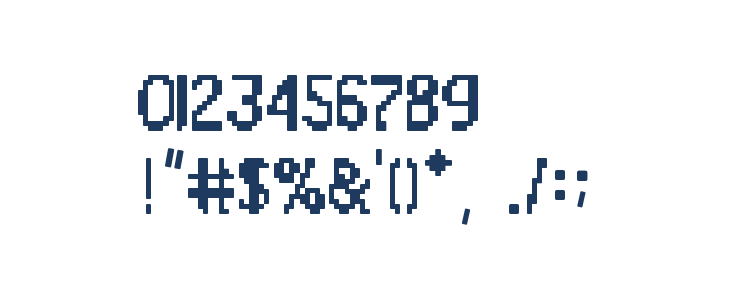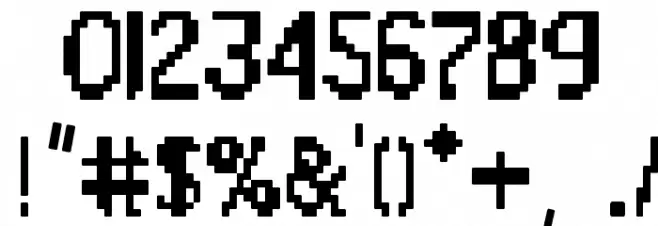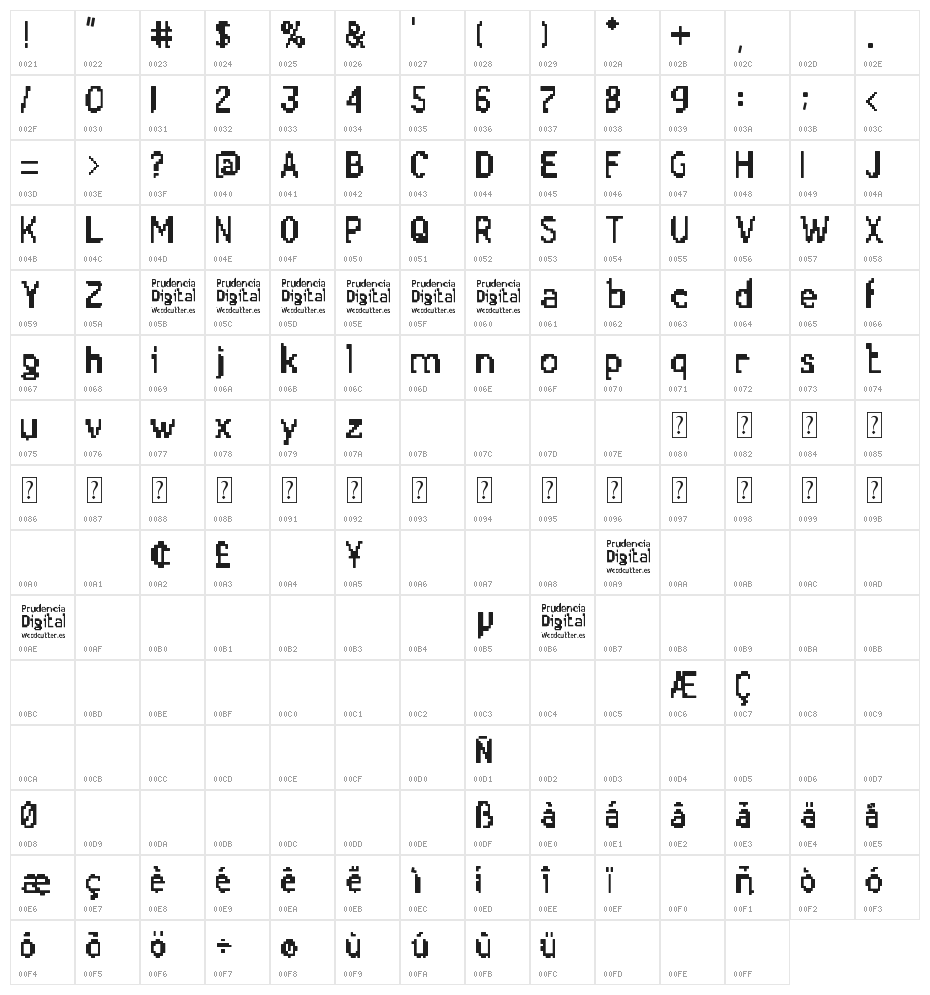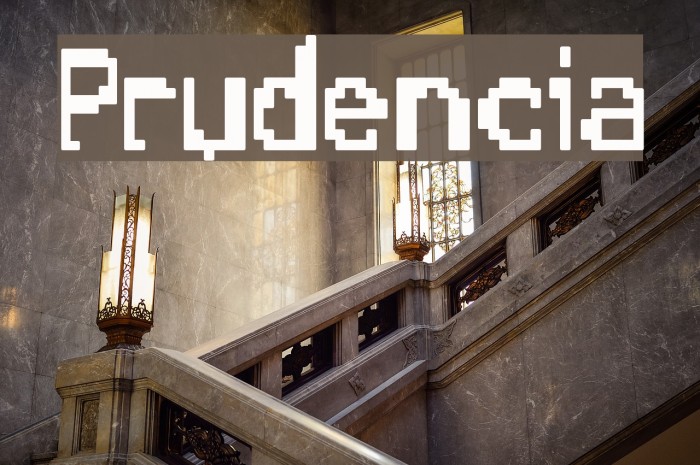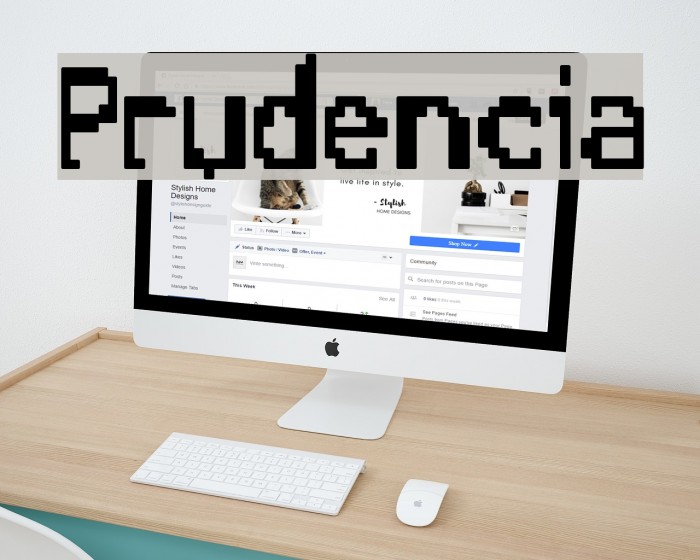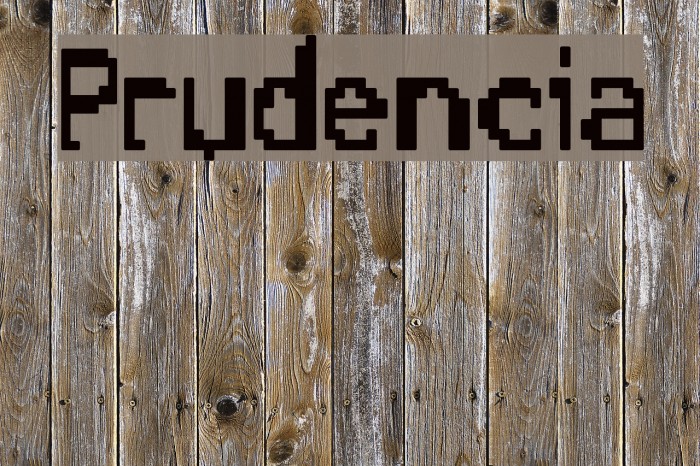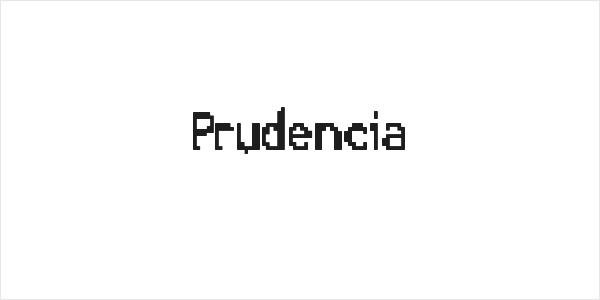
Prudencia Font
Prudencia Description
This font features a pixelated, blocky design reminiscent of early digital displays and retro video games. Each character is composed of distinct, square-like shapes, giving it a unique, nostalgic appearance. The uppercase and lowercase letters maintain a consistent style, with the uppercase being slightly taller and more pronounced. Numbers and special characters follow the same pixelated pattern, ensuring uniformity across all glyphs. The overall aesthetic is bold and eye-catching, making it suitable for projects that aim to evoke a sense of nostalgia or a digital, tech-inspired theme.